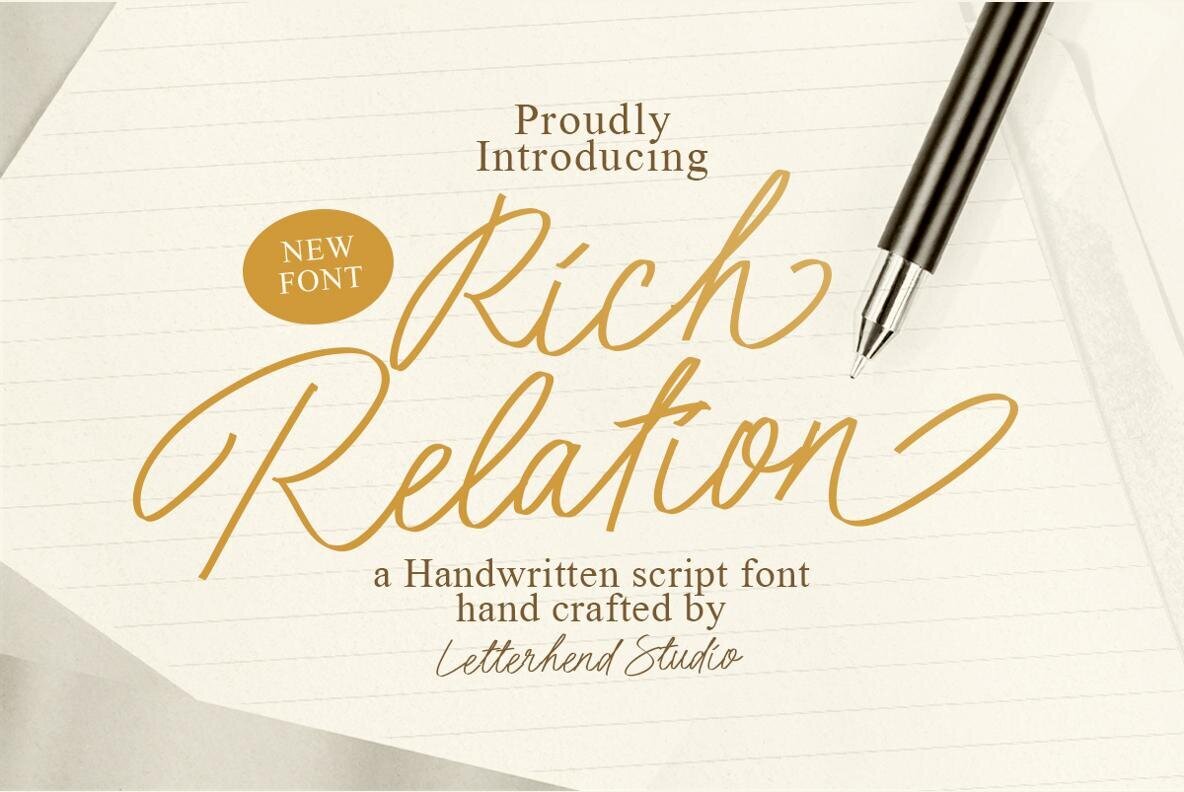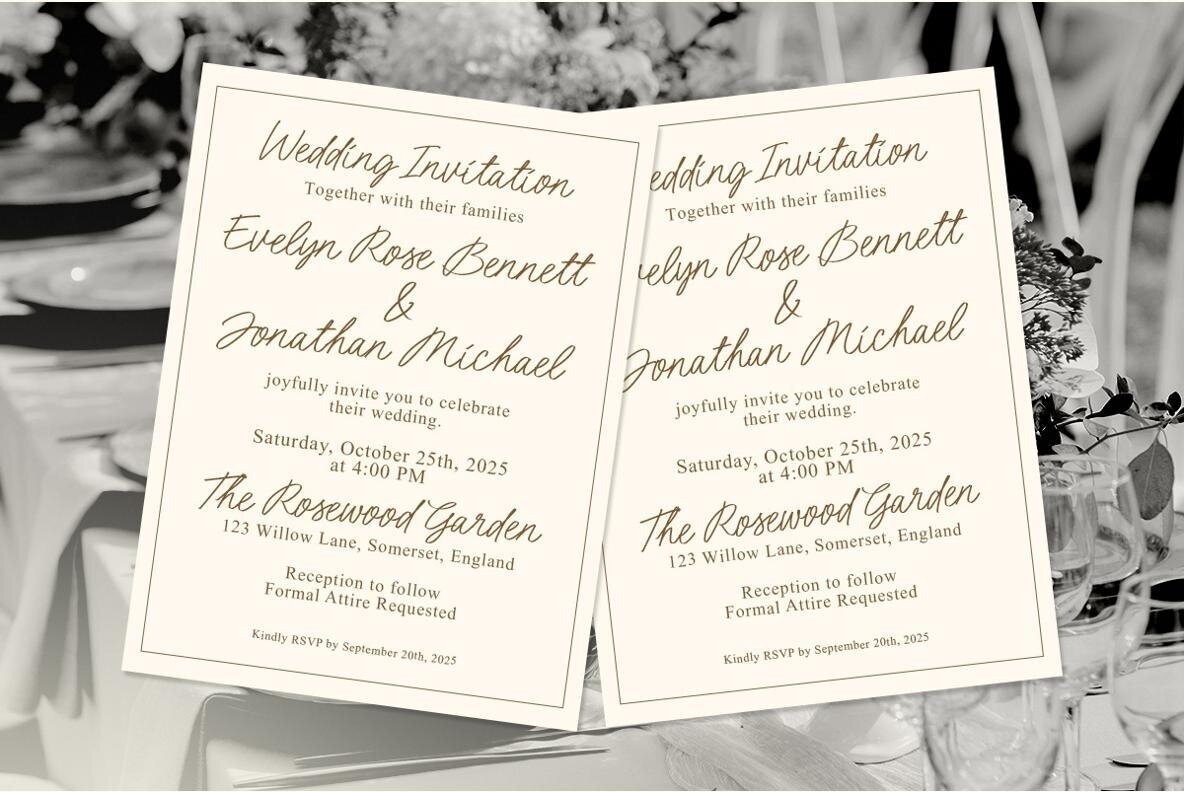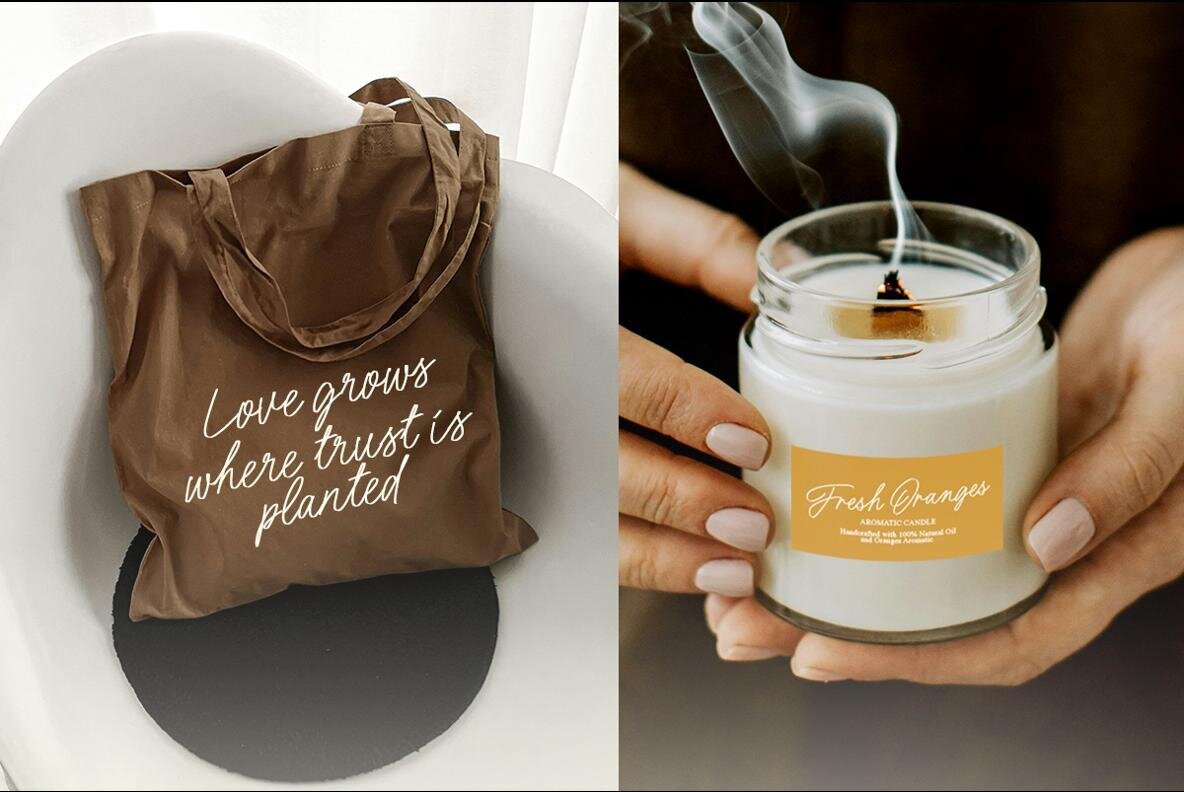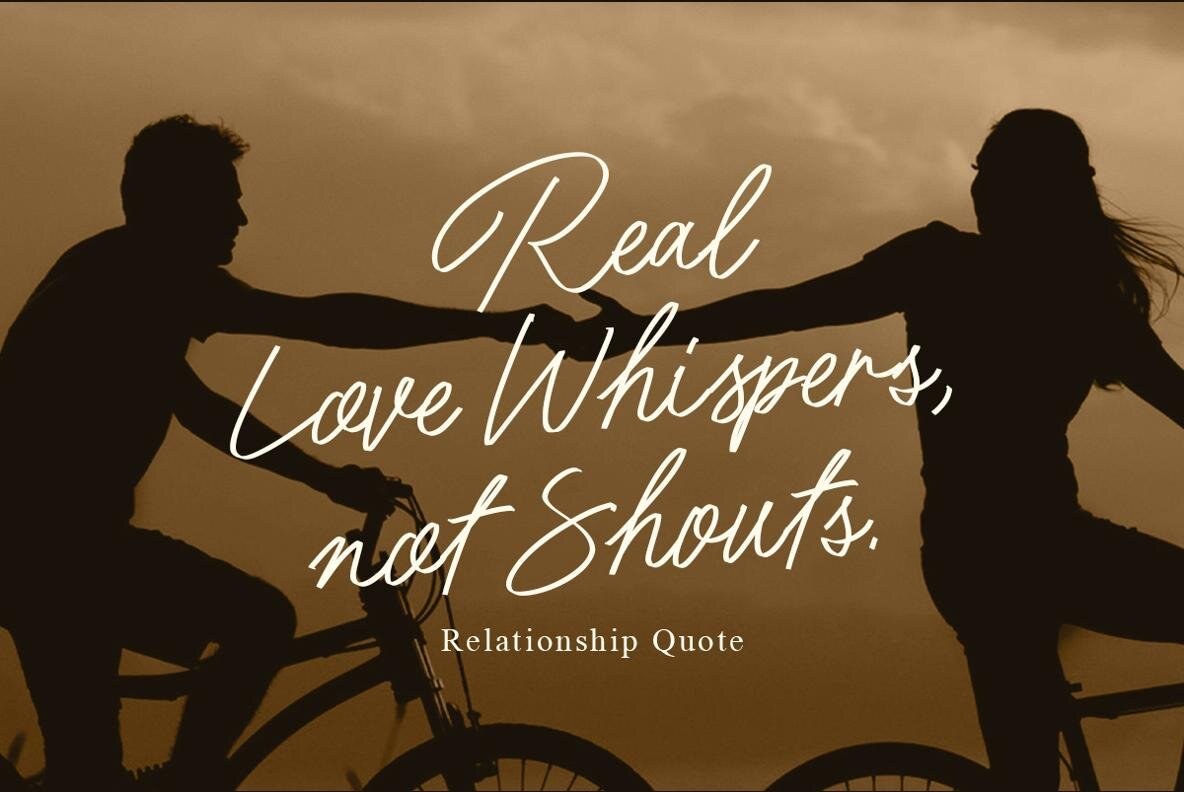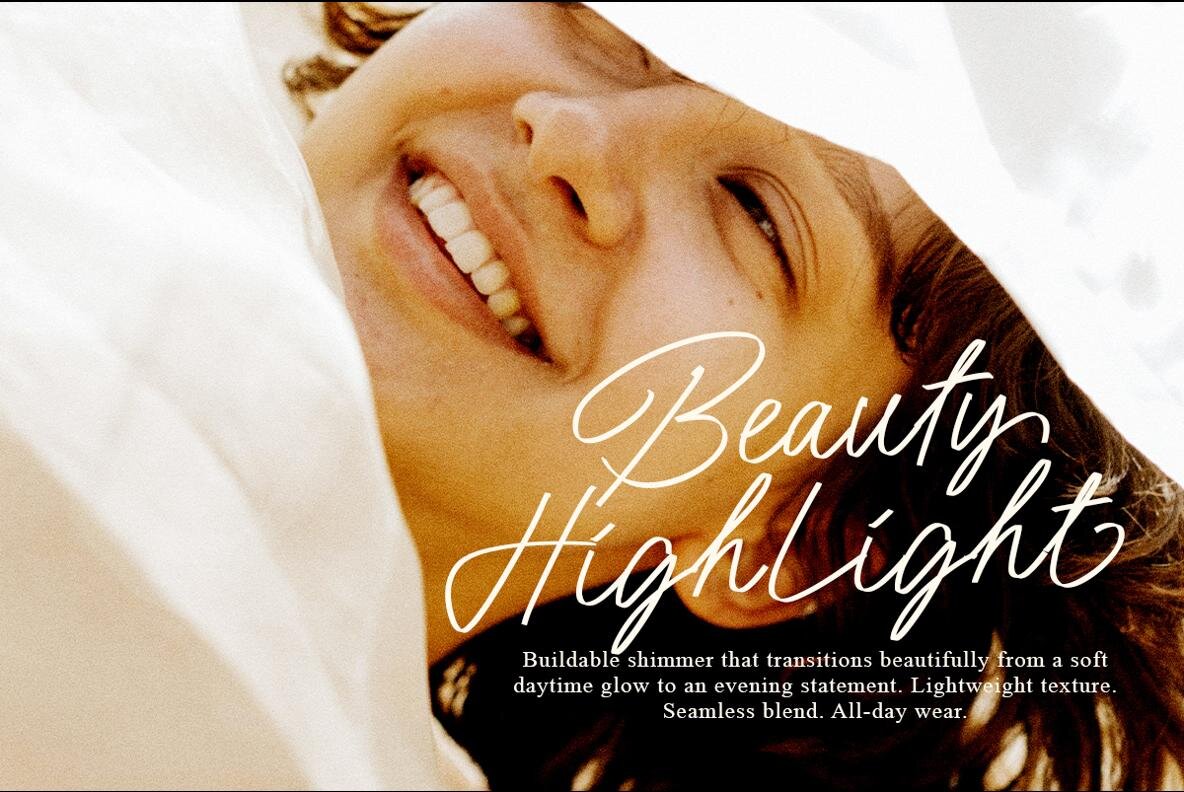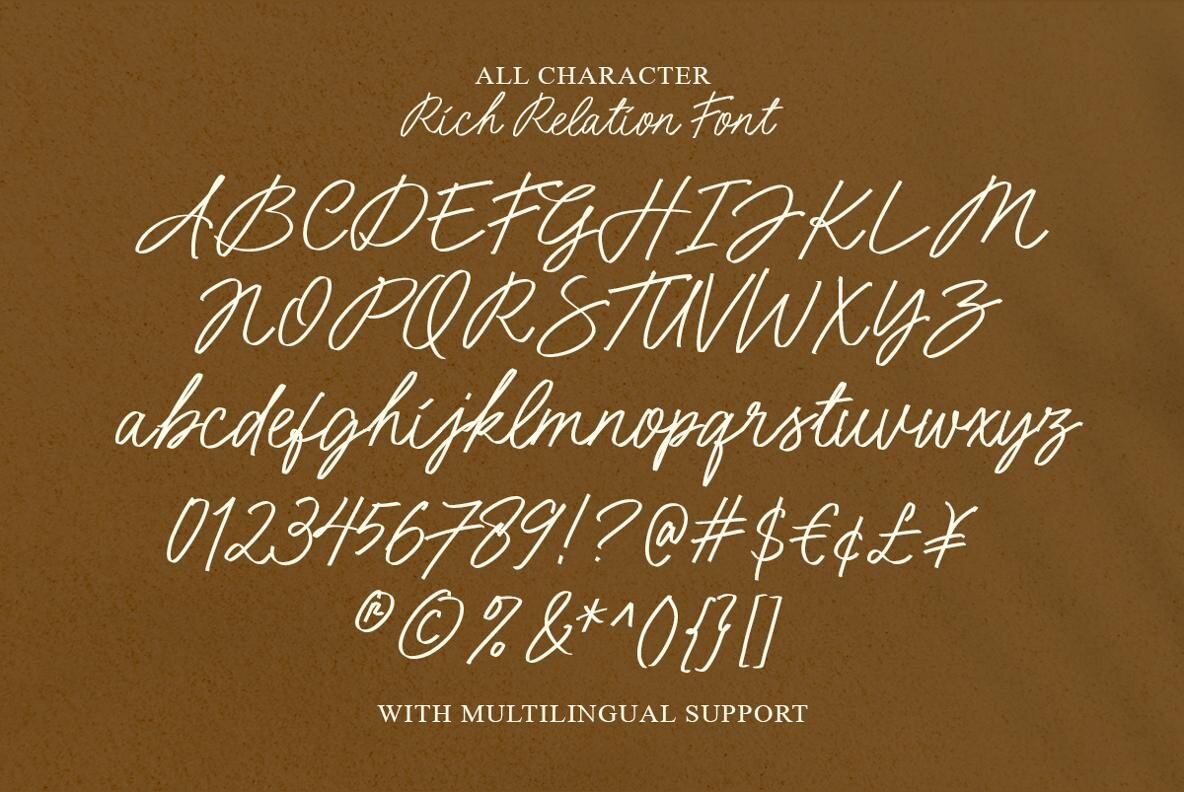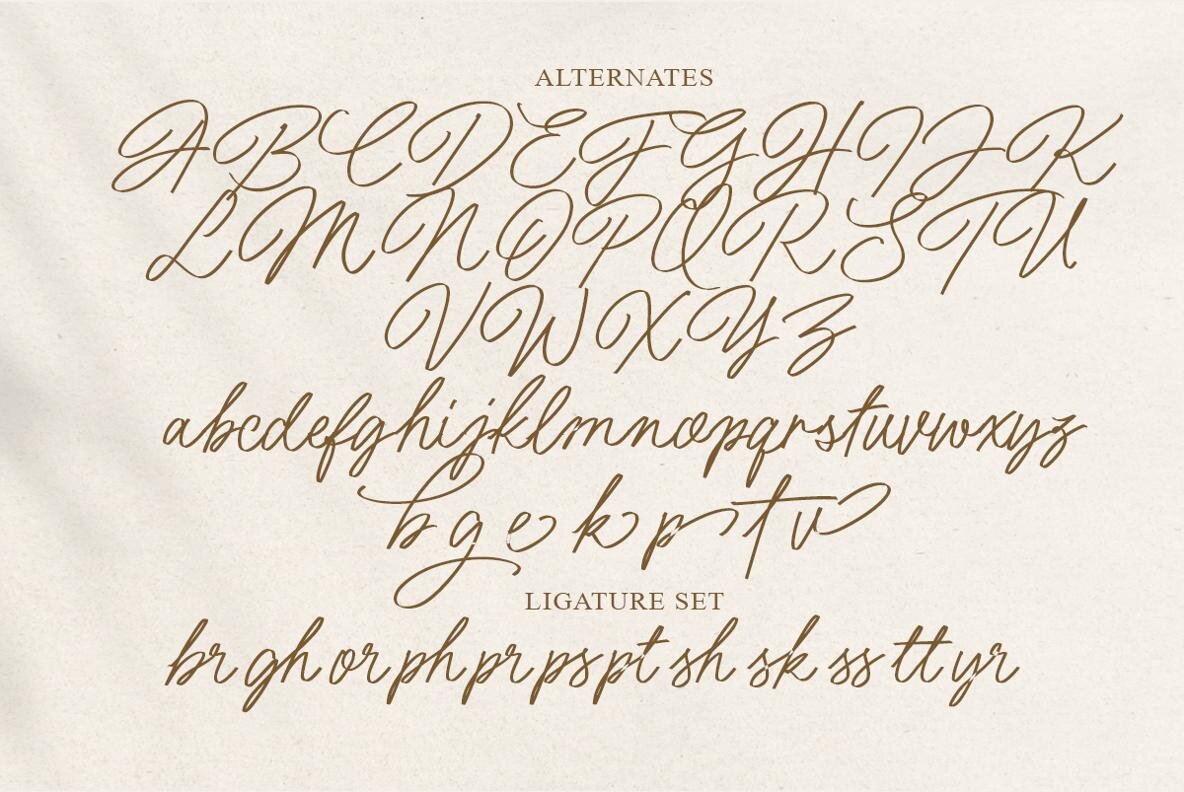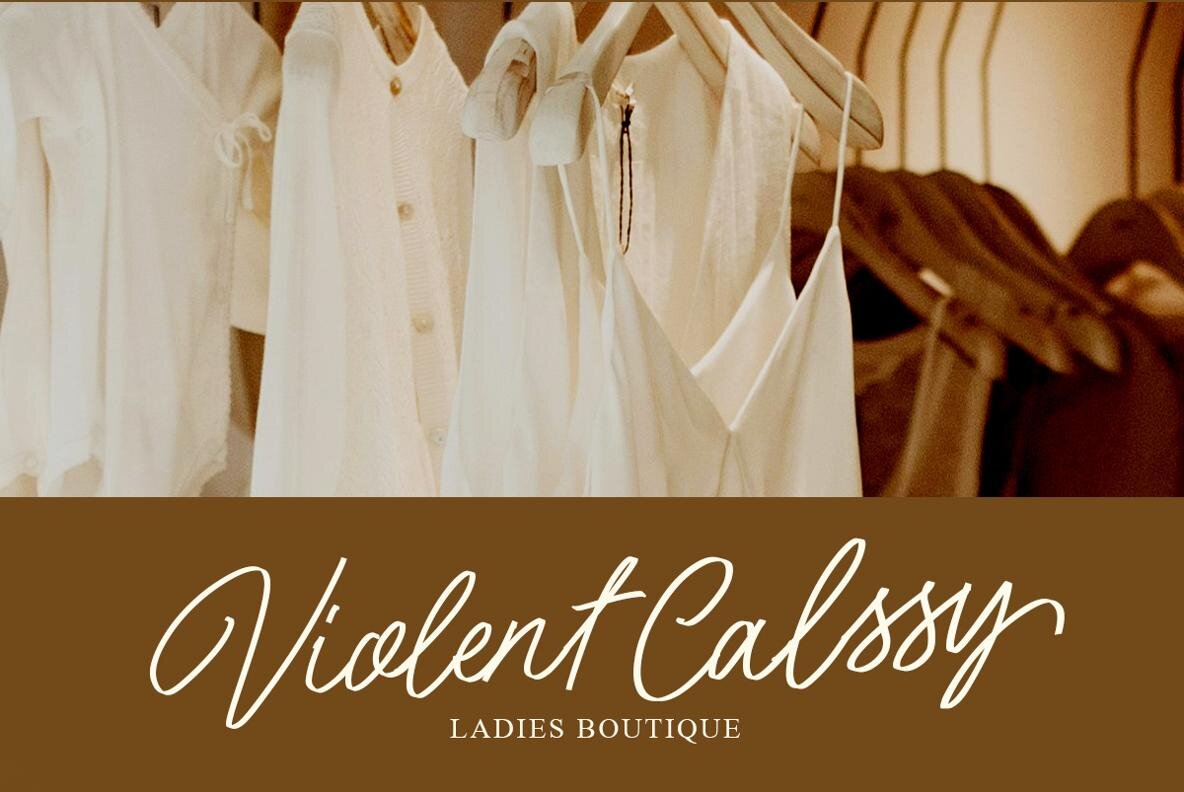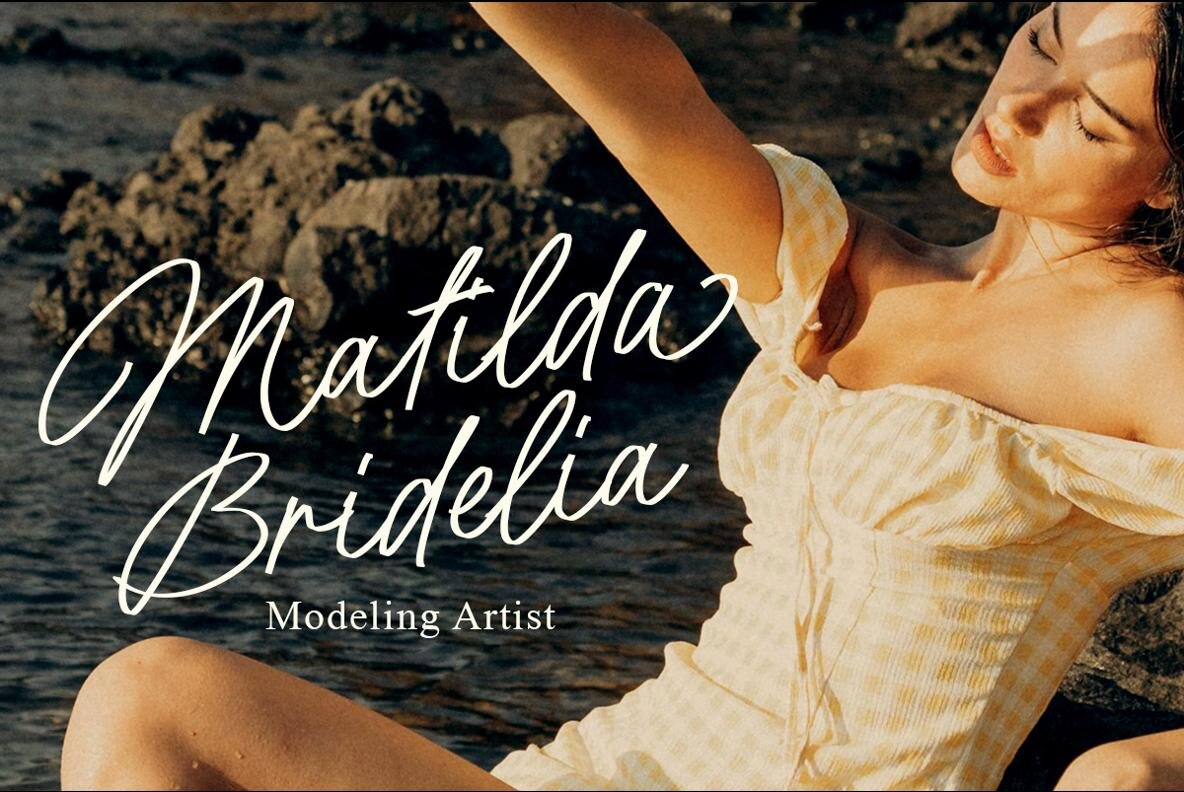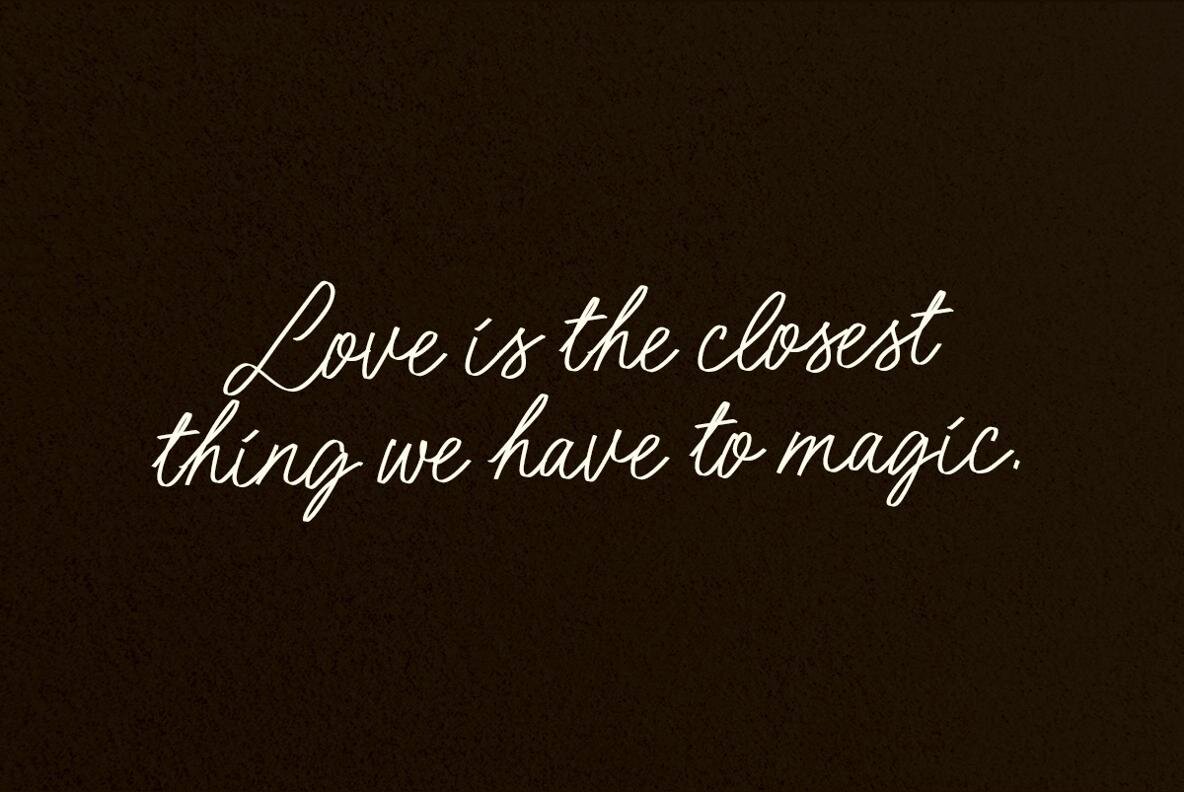
Rich Relation Font
Rich Relation Regular
Rich Relation offers a refined handwritten script font that exudes the warmth and personal touch of a heartfelt note. Its fluid, smooth pen strokes and elegant curves make it ideal for an array of sophisticated designs. Whether you're crafting wedding invitations, creating branded materials, designing greeting cards, or packaging products with charm, Rich Relation infuses sincerity and sophistication into every project. Its versatility shines in both prominent headlines and subtle signatures, drawing attention with its unique style. For the best experience with Rich Relation, we recommend using software that supports OpenType features and Glyphs panels, such as those found in Adobe applications or Corel Draw. This ensures you can fully access and enjoy all glyph variations the font has to offer.Rich Relation by Letterhend Studio